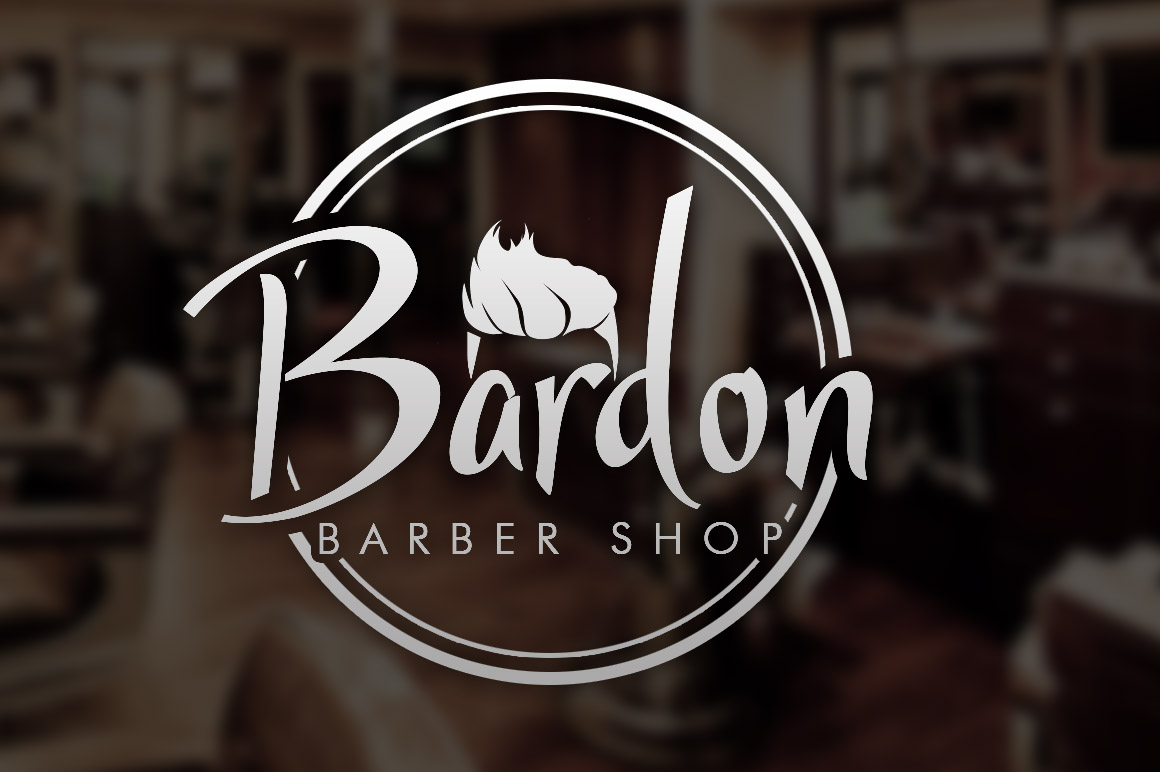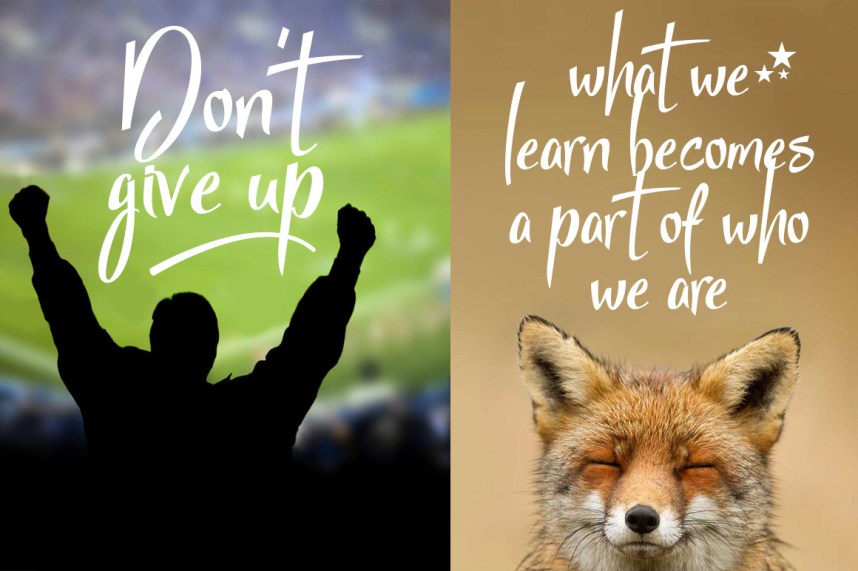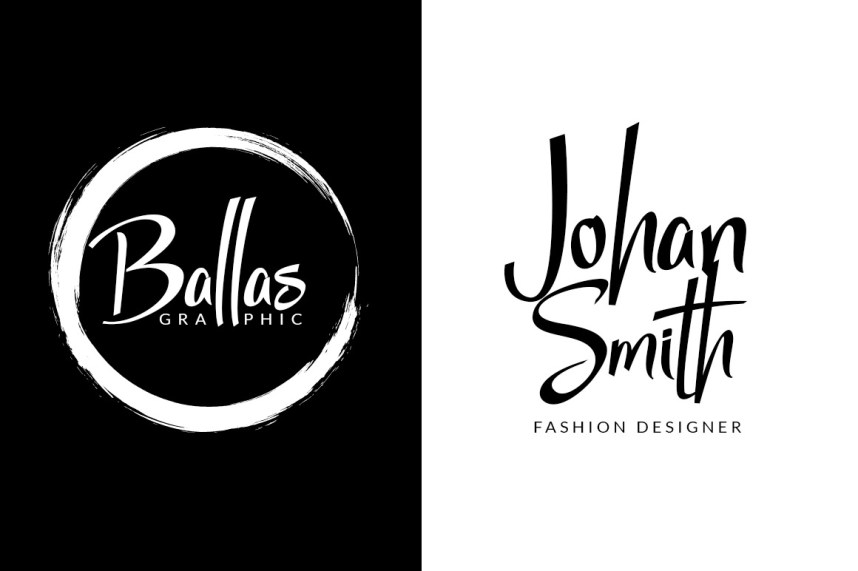
StarmiX Script Font
Continue to be a new calligraphy font. Introducing StarmiX Script Font! StarmiX designed by Khurasan. StarmiX is a fresh and unique font. This handmade font features multilingual characters and includes swashes.